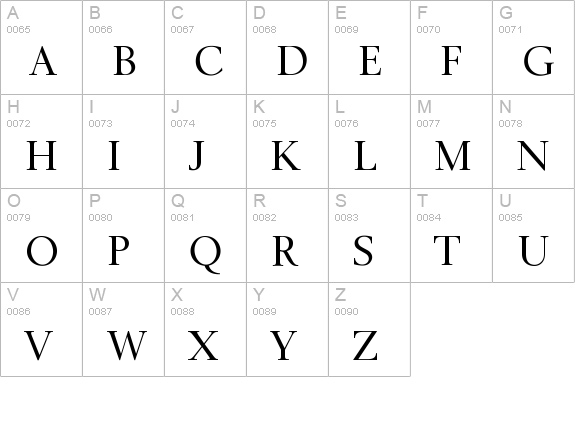
Belfast-Regular is the standard, neutral variant in the Belfast typeface family \xE2\x80\x94 well suited to general body text, paragraphs, and standard typographic work.
Introducing Belfast-Regular, a classic yet modern font that exudes elegance and sophistication. This versatile typeface is perfect for a wide range of design projects, from branding to editorial design to packaging. Its clean lines and balanced proportions make it a timeless choice that will never go out of style. Best of all, Belfast-Regular is available for free download at FontsMarket.com. This means you can easily access this high-quality font and use it in your projects without any cost. Don't miss out on the opportunity to enhance your designs with the beauty and versatility of Belfast-Regular. Download it today and elevate your creative work to the next level.